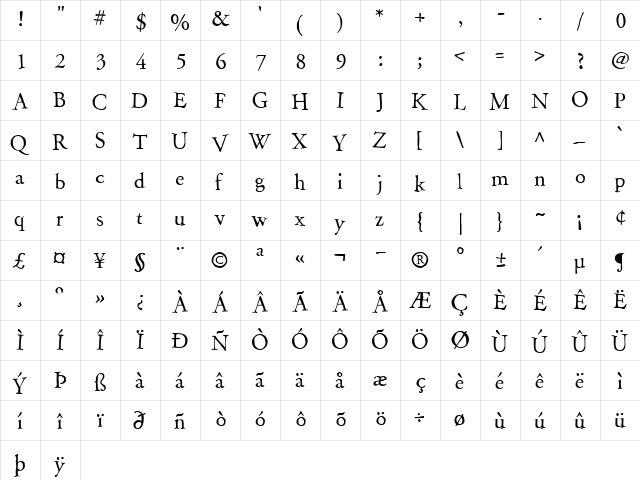
P22 Garamouche Regular
Design Context for P22 Garamouche Typeface
P22 Garamouche is a composed and adaptable typeface that performs quietly and consistently across a wide range of design contexts.